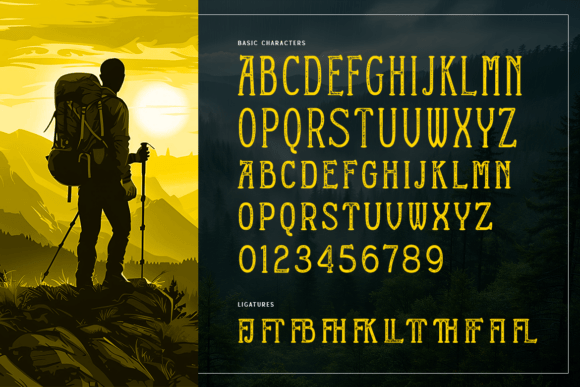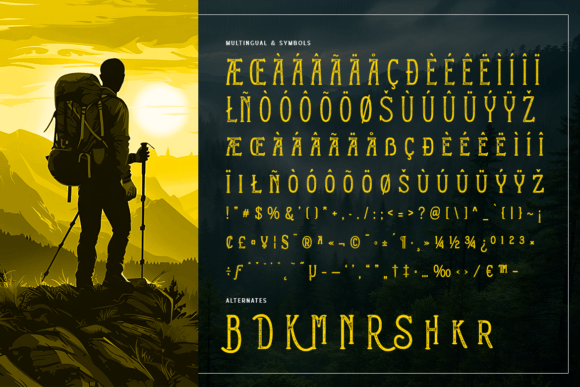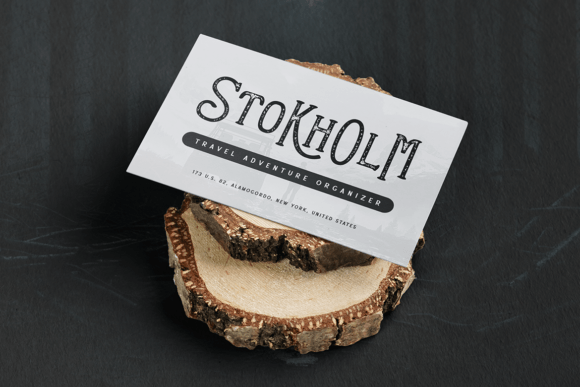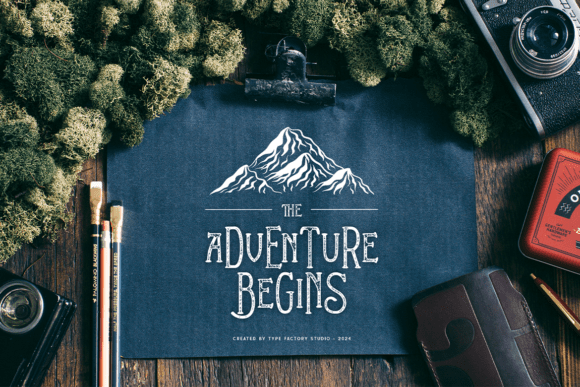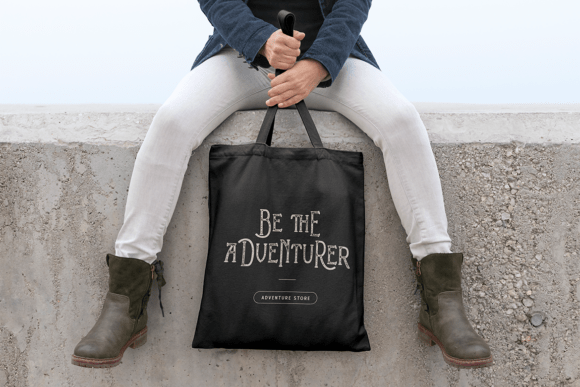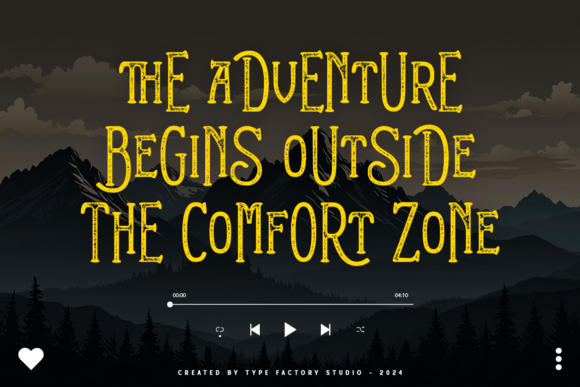
Introduction to Journeyverse Font
Journeyverse is a vintage adventure display typeface featuring textured letterforms and classic serif construction.
The characters combine tall proportions with distressed details that create a rugged and outdoors-inspired typographic style The typeface is designed to capture the spirit of exploration and adventure graphics.
Key Features of Journeyverse Font
Why Choose Journeyverse Font?